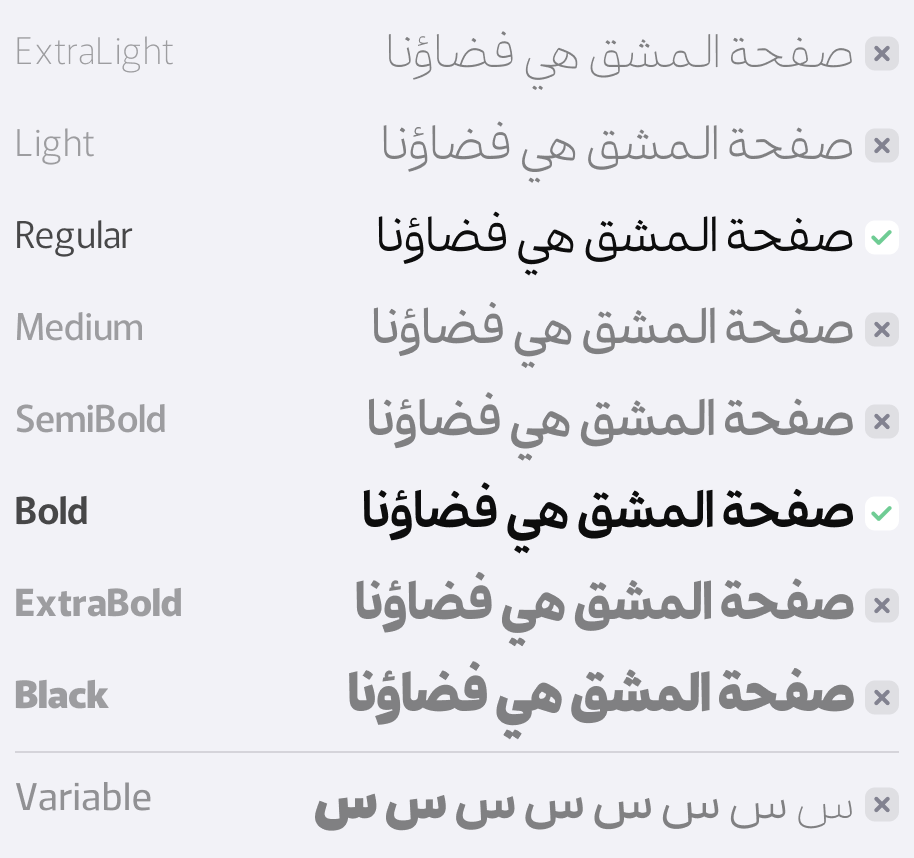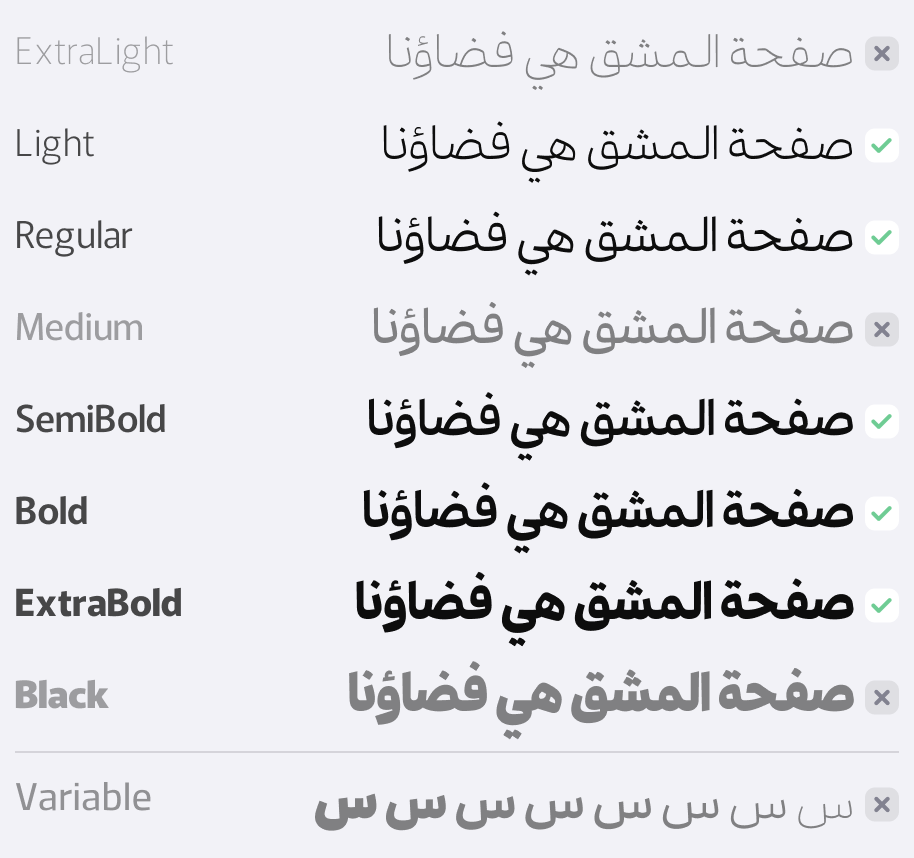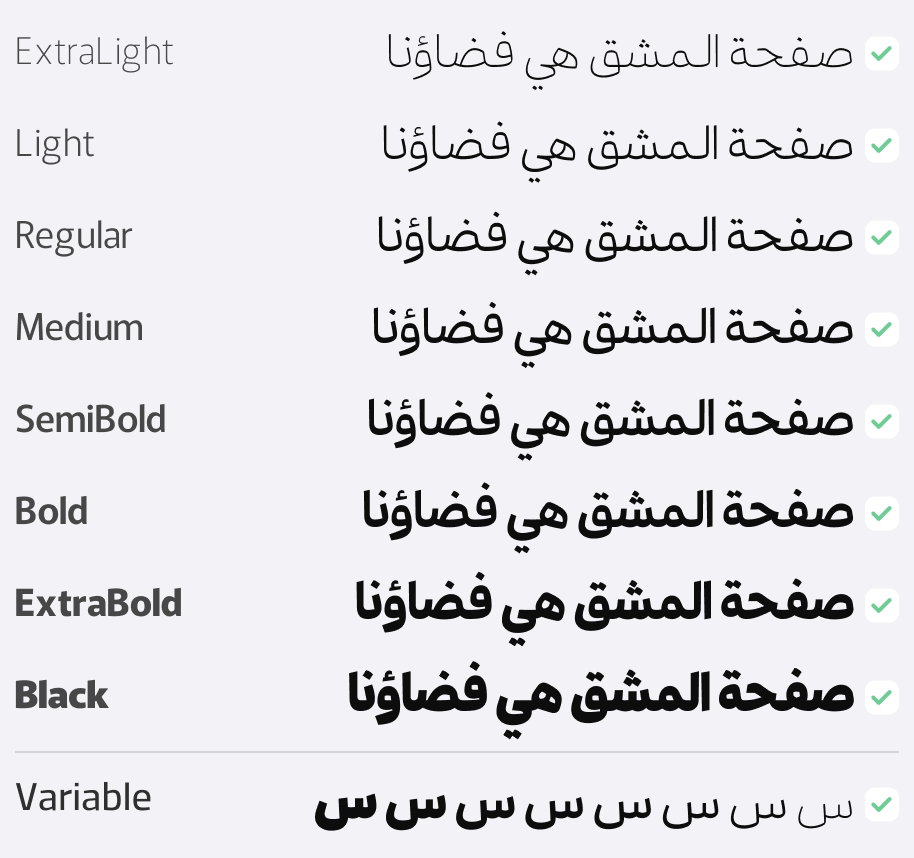
Ravagh
Ravagh is a font with a completely modern approach and forms, designed specifically for use in contemporary spaces. The font comes in 8 weights to meet all the needs for both body text and headlines. In addition, Ravagh features elongations in some characters, which assist designers in justifying their text. The font also includes alternative ligatures, providing flexibility to meet the diverse needs of designers across different settings